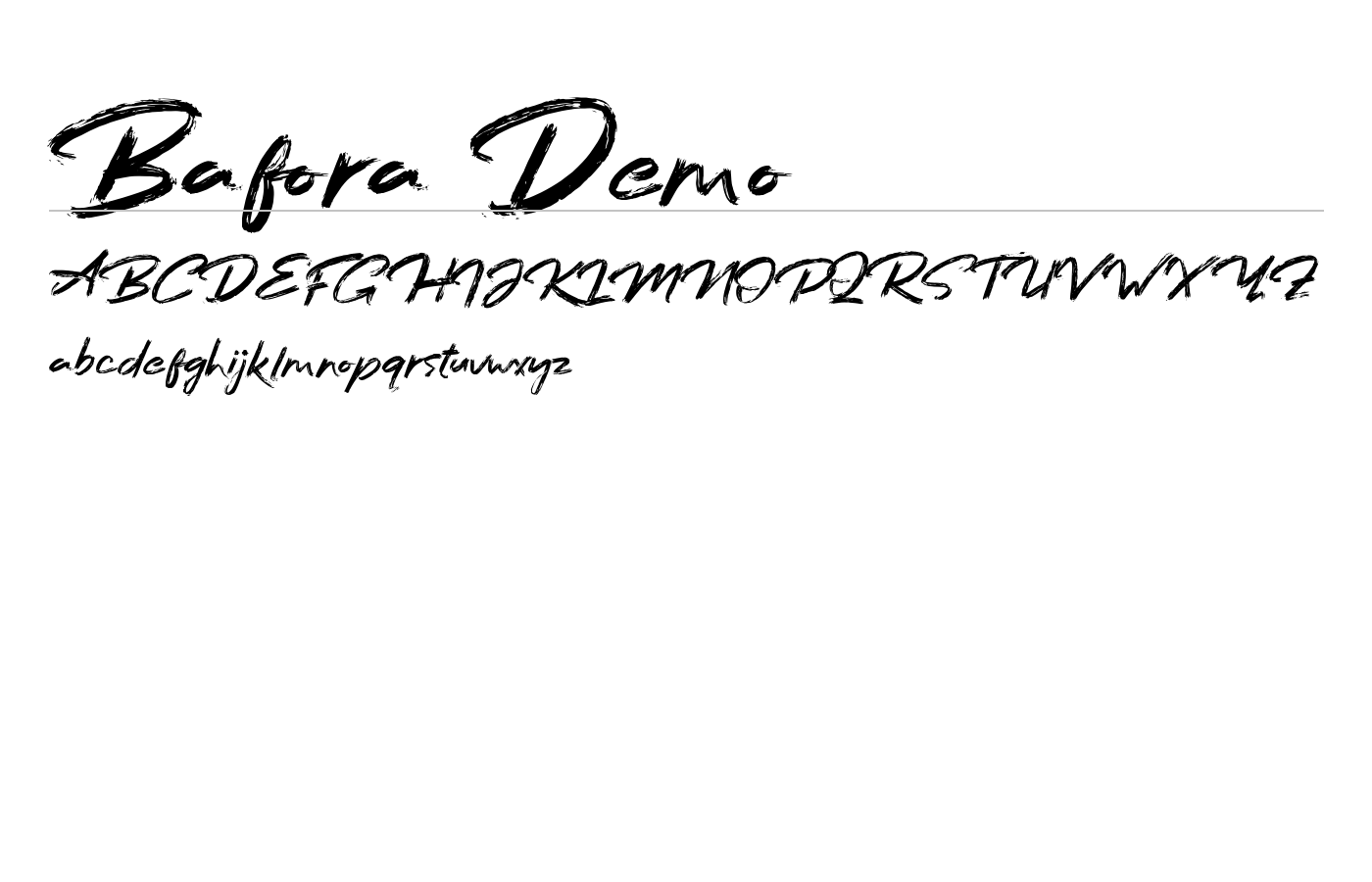
Bafora Demo is an energetic brush script font with a rough, hand-painted texture that brings a dynamic and artistic feel to any project. Its casual yet bold strokes make it perfect for creative branding, posters, or invitations where a lively, expressive style is desired. This font works well in headlines or logos that seek to convey personality and an authentic, handcrafted vibe.
Bafora Demo Font
About Bafora Demo Font
| Font family | Bafora Demo Font |